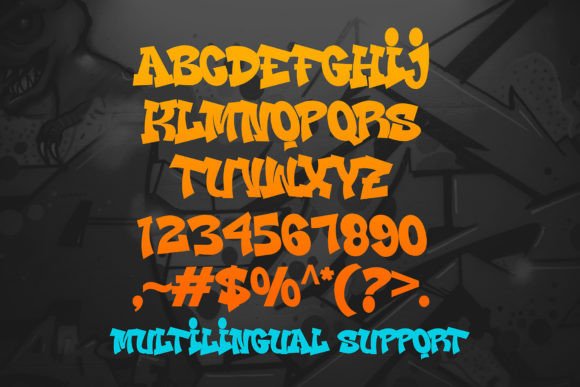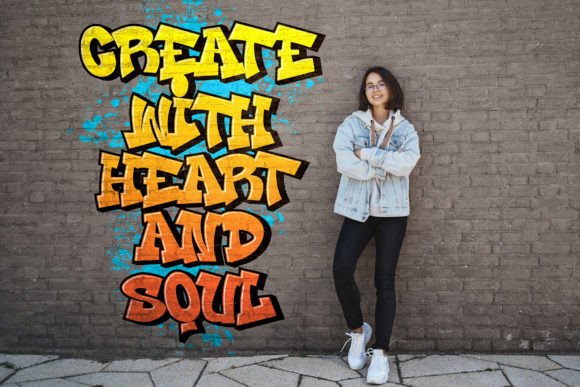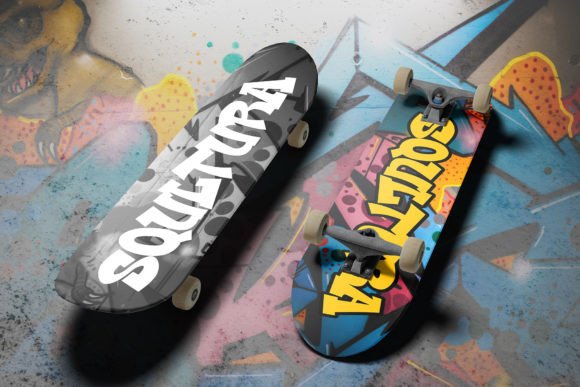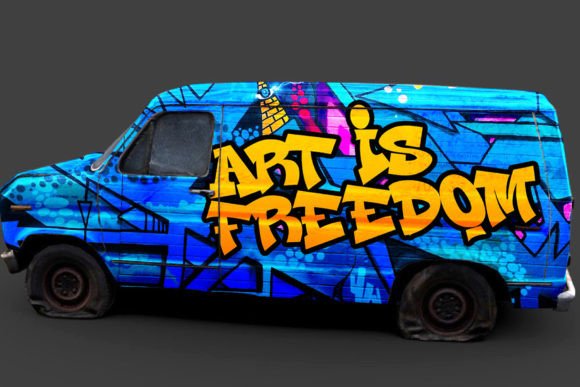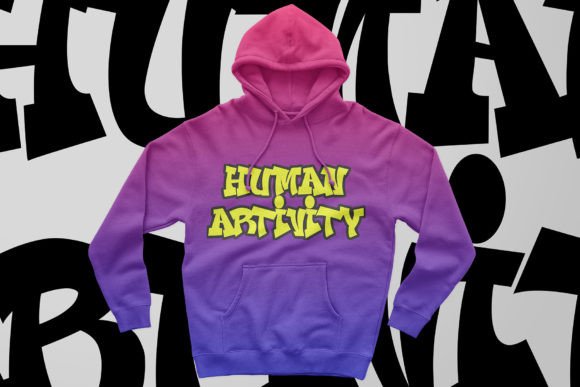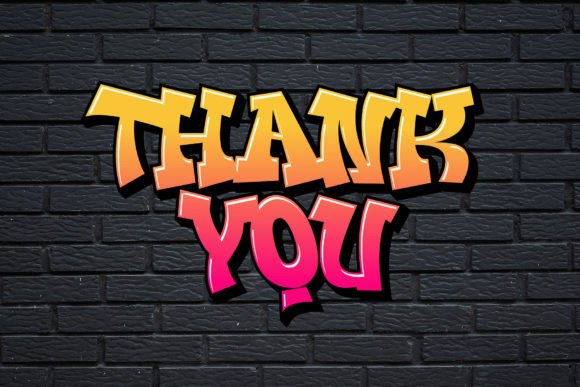
Introduction to Fast Blaze Font
You’re sitting at your desk, surrounded by papers, sketches, and a blank computer screen. You’re trying to come up with the perfect design for your client’s music poster, but nothing seems to be clicking. That’s when you stumble upon the perfect font – Fast Blaze Font. Its bold, edgy style is exactly what you need to give your design a powerful and eye-catching twist.
Fast Blaze Font is more than just a design resource – it’s a game-changer for creative projects. With its high-quality, transparent background, you can easily integrate it into any design without worrying about background issues. Whether you’re working on a music poster, apparel design, or streetwear project, this font is the perfect addition to give it that extra oomph.
Key Features of Fast Blaze Font
- High-quality font design ideal for creative projects requiring a modern and sleek aesthetic.
- Unique, bold design with a transparent background, making it perfect for use on logos, branding materials, and digital displays.
- Fast Blaze Font is a highly versatile design resource, suitable for use in a variety of contexts, from web design to print materials.
Honest Review: Fast Blaze Font
As a designer, I’m always on the lookout for high-quality design resources that can elevate my creative projects. The Fast Blaze Font is one such resource that caught my attention, and I’m excited to share my honest review with you.
- The font’s modern and sleek design makes it perfect for any project that requires a bold and edgy look.
- The transparent background option allows for seamless integration with any background image or color.
- The font may not be suitable for projects that require a more traditional or classic look.
- The font’s boldness may be overwhelming for some designs, so it’s essential to use it sparingly.
Overall, I’m impressed with the Fast Blaze Font, and I think it’s an excellent addition to any designer’s toolkit. While it may have some limitations, its high-quality design and free download make it a great resource for creative projects. If you’re looking for a bold and modern font, I highly recommend giving it a try.
How to Use Fast Blaze Font
The Fast Blaze Font is a high-quality design resource ideal for various creative projects. It features a modern and sleek style, making it perfect for designs that require a professional touch.
To get the most out of the Fast Blaze Font, use it with a transparent background to create a modern and sleek design. You can also combine it with other design elements to create a unique and eye-catching visual effect.
The Fast Blaze Font is ideal for various creative projects, including business cards, brochures, and social media graphics. It’s also perfect for designers who want to create high-quality designs with a professional touch.